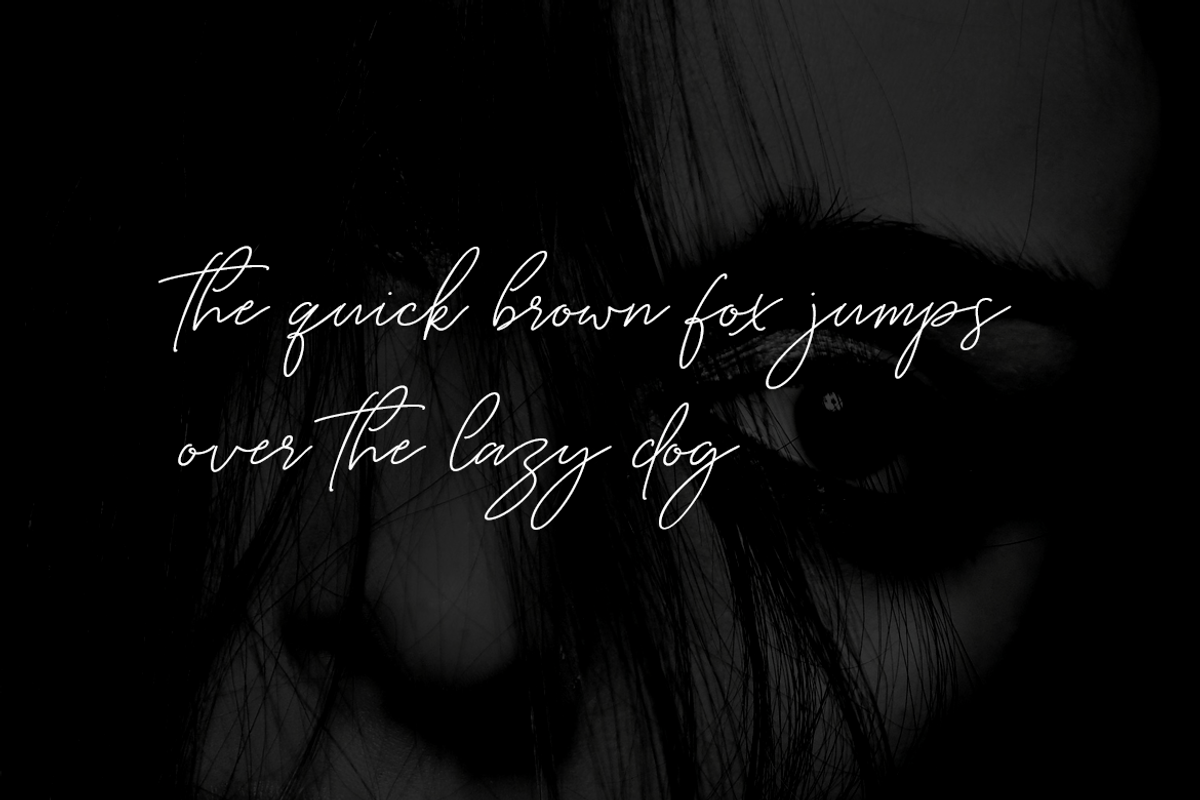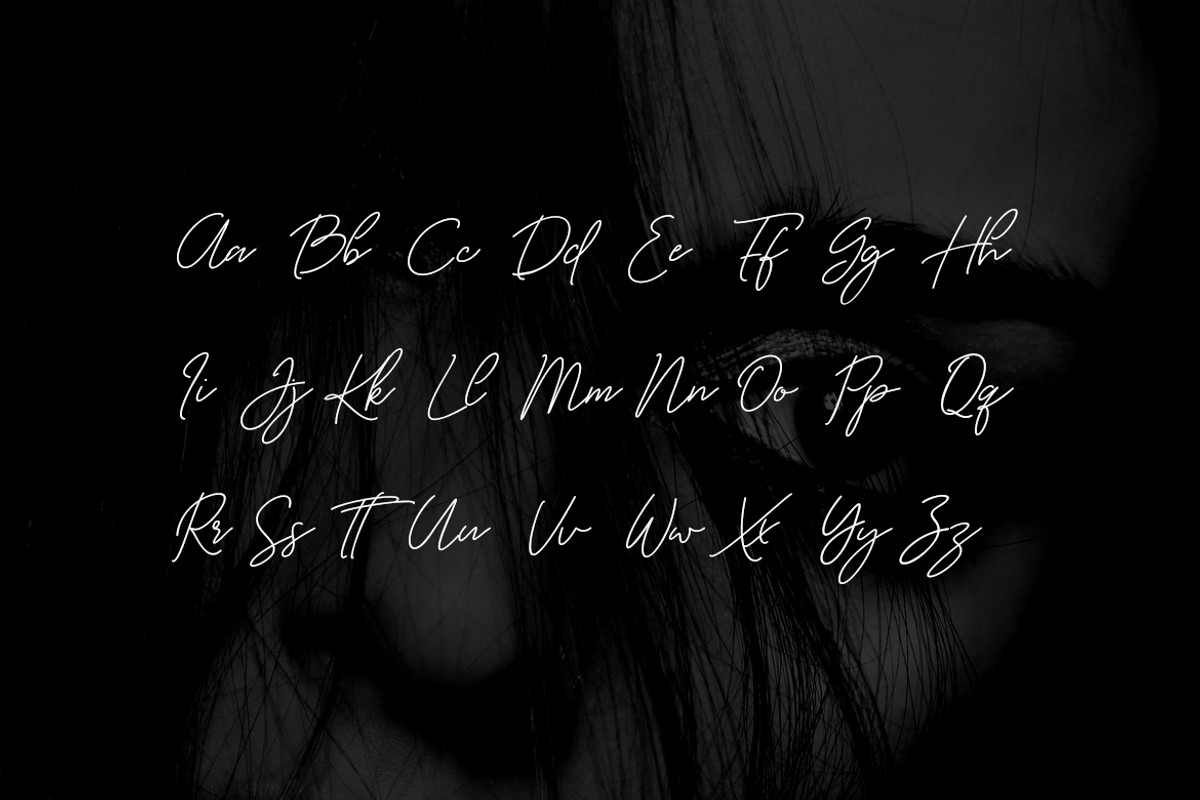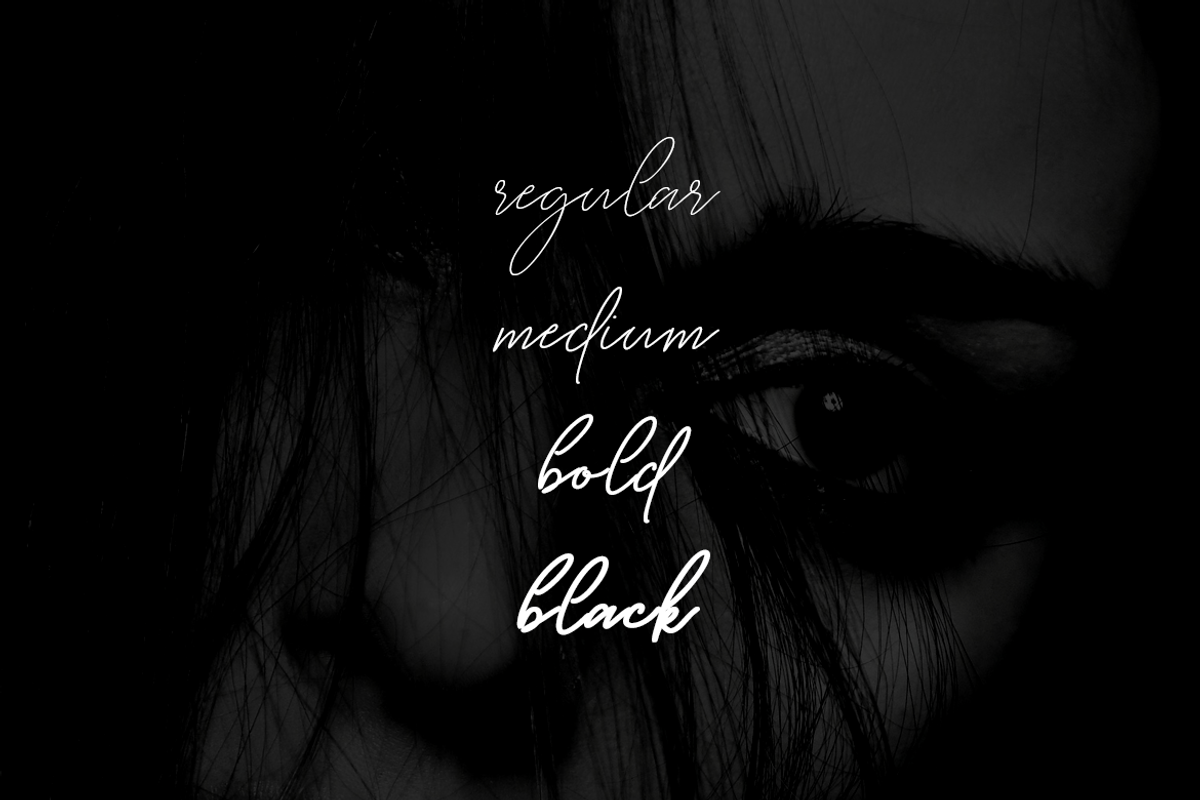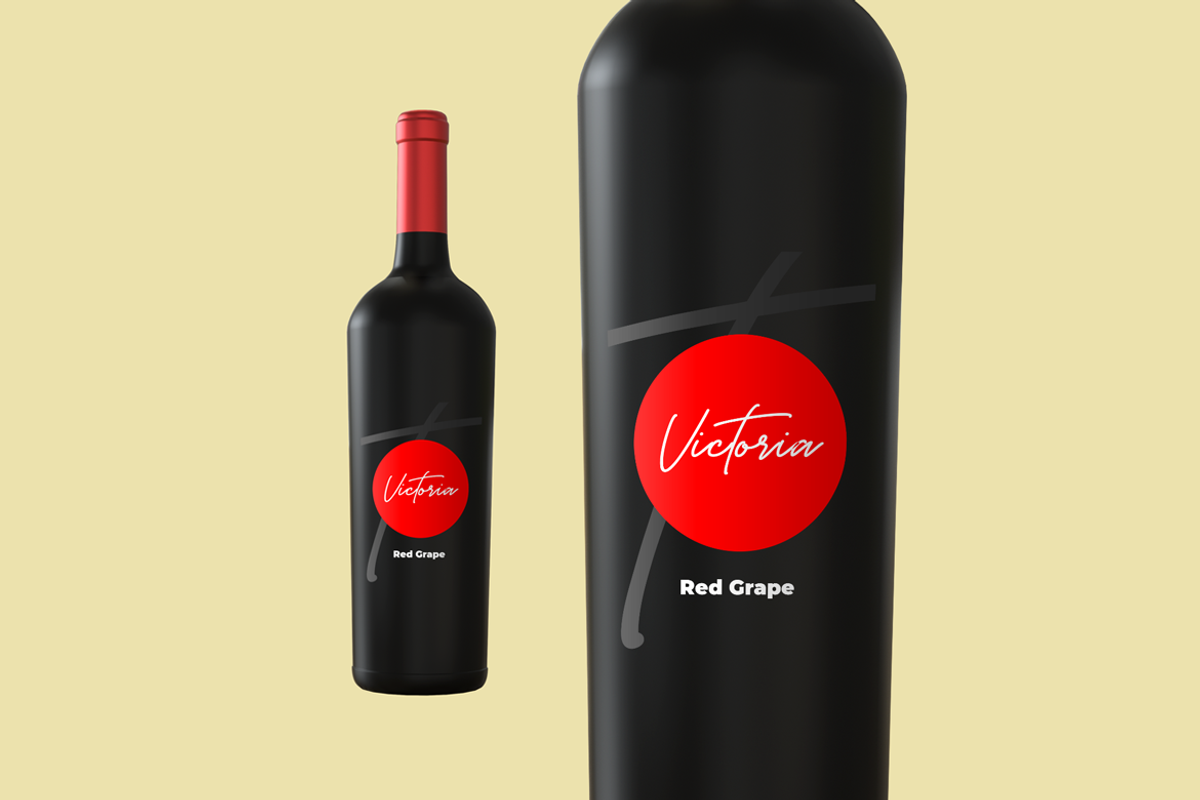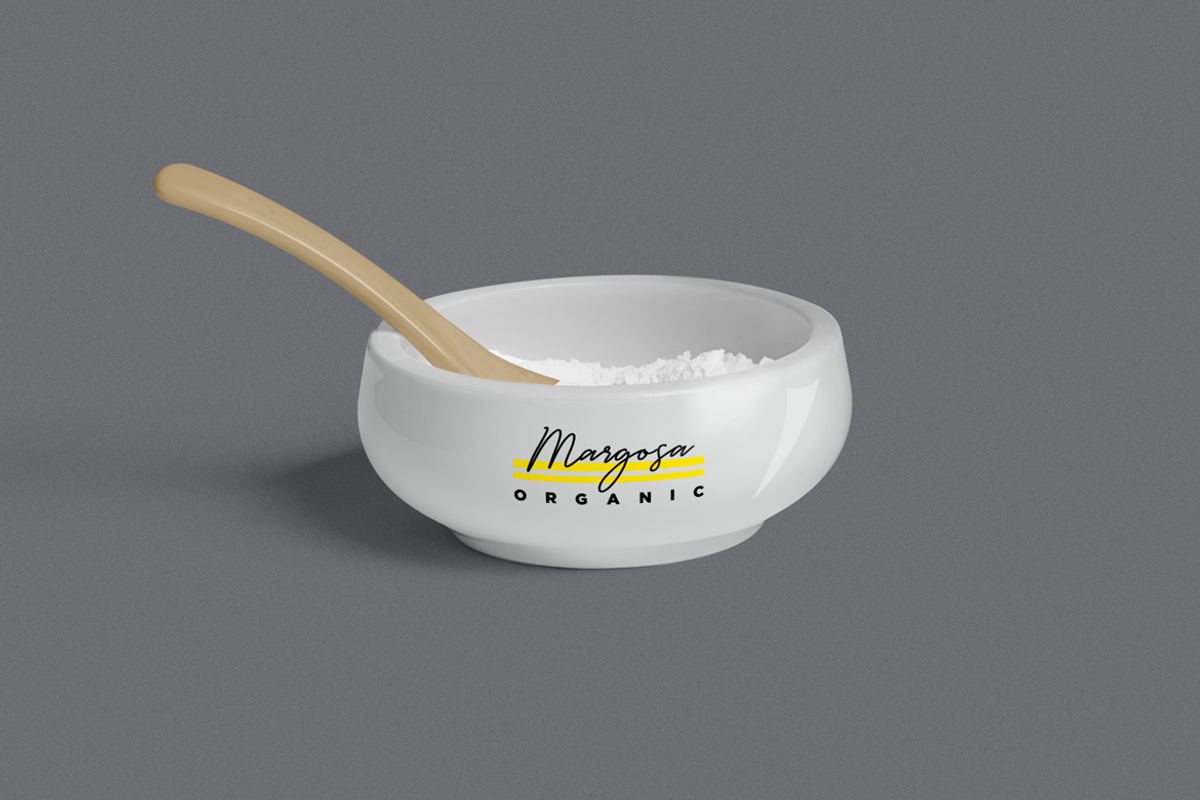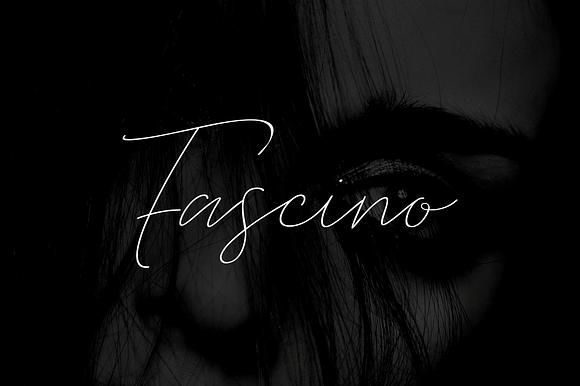
FASCINO - Handmade Luxury Font
Fascino is a amazingly beautiful handwritten font for luxury / branding / wedding invites / greeting cards / logo design / promotional graphics. Fascino is handwritten, precisely adding a finest touch of perfection and aesthetics at it's level best.
We have performed advanced, in-depth kerning to make sure the font looks amazing on all possible letter combinations.
This typeface comes with 4 different weights as Regular, Medium, Bold and Black. The pack contains Desktop fonts (OTF, TTF) and Web Fonts (all EOT, SVG, TTF, WOFF, WOFF2 everything is included) as licensing options.